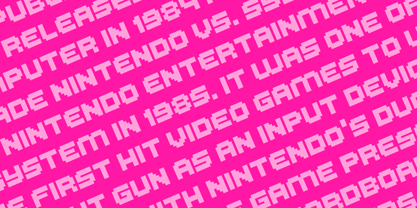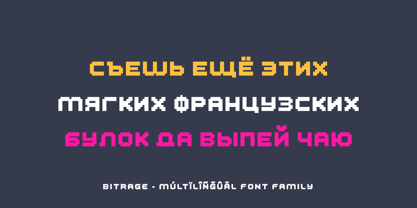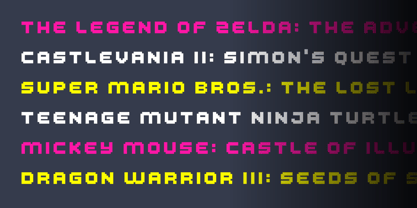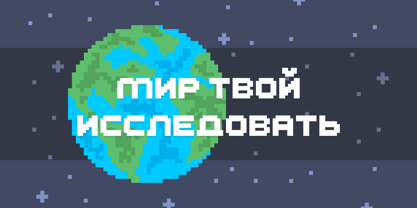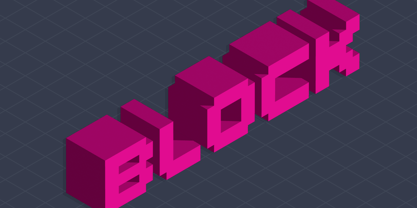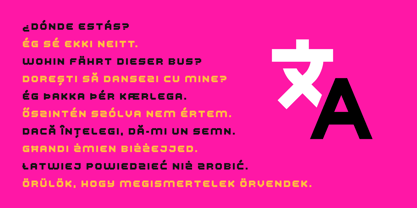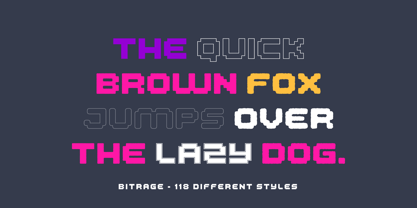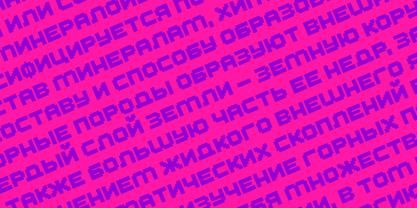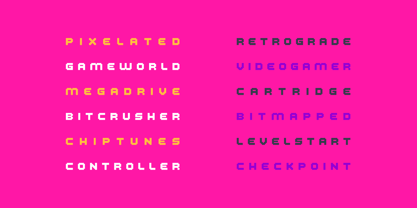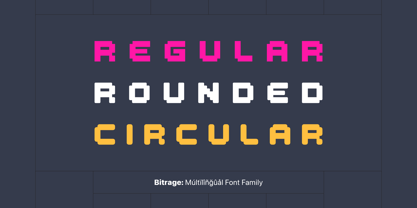
Bitrage
The Bitrage Font Family was designed by Alper Çakıcı and published by AlperCakici. Bitrage contains 1 styles.
Bitrage is a modern, versatile font with excellent kerning, making it ideal for both digital and print use. It features full support for the Cyrillic language, allowing for seamless multilingual communication. Bitrage's unique design combines classic proportions with a contemporary feel, making it stand out from other same categories fonts.